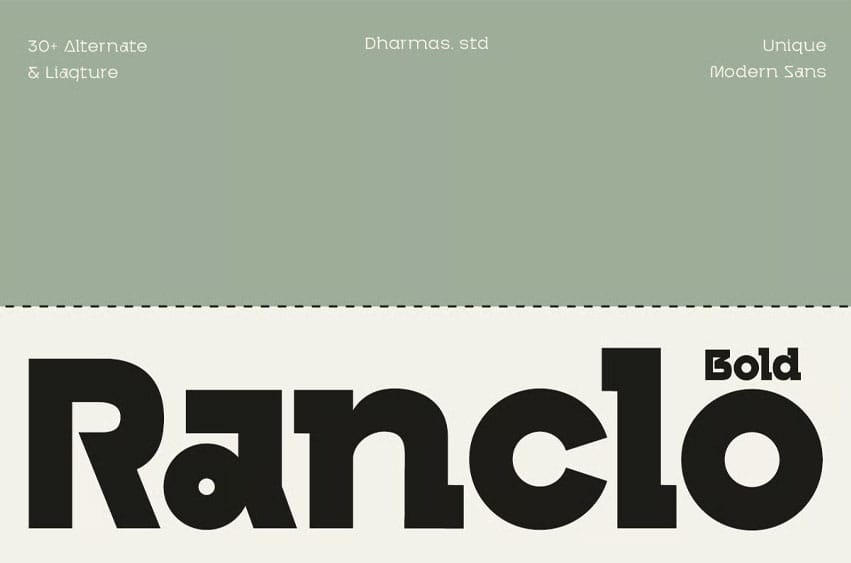
Ranclo Bold Font
Ranclo Bold Font is a contemporary display typeface with a bold, geometric foundation—built for standout visual presence. The Bold style offers maximum impact with its strong letterforms and precise structure.
With clean lines and confident proportions, Ranclo Bold adds clarity and power to your design work. Whether you’re crafting a bold brand identity, standout packaging, or high-contrast editorial layouts, this font brings a sense of authority and modern edge.
Font Features:
• 1 Style: Bold
• 32+ Alternates & Ligatures for creative flexibility
• OpenType Features: Advanced typographic options
• Multilingual Support: Covers multiple global languages